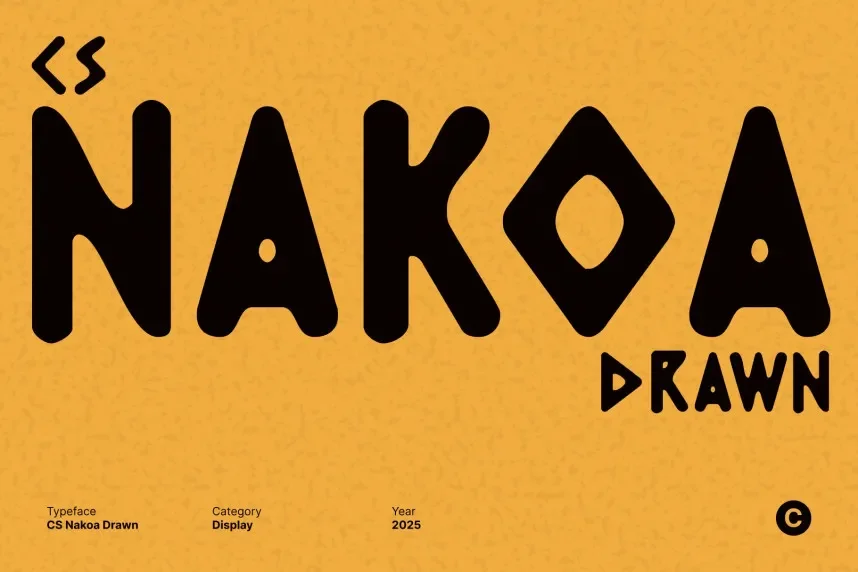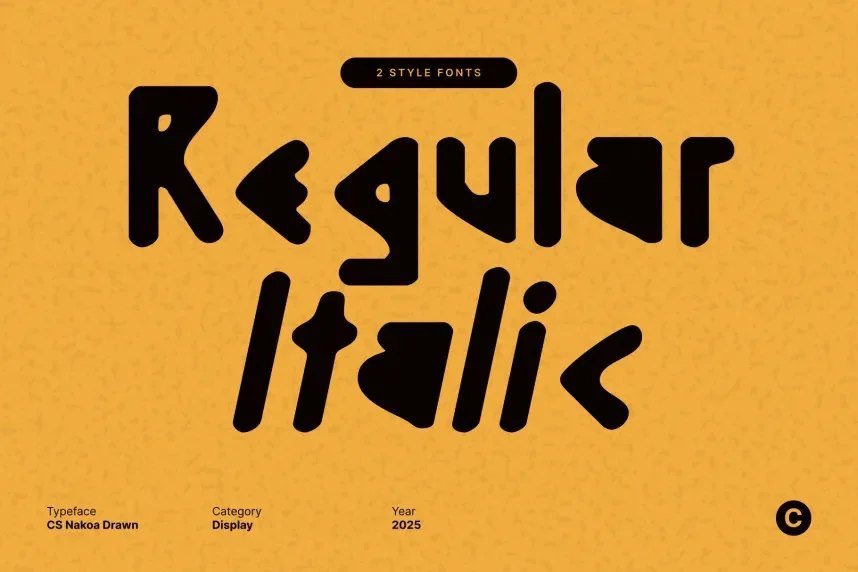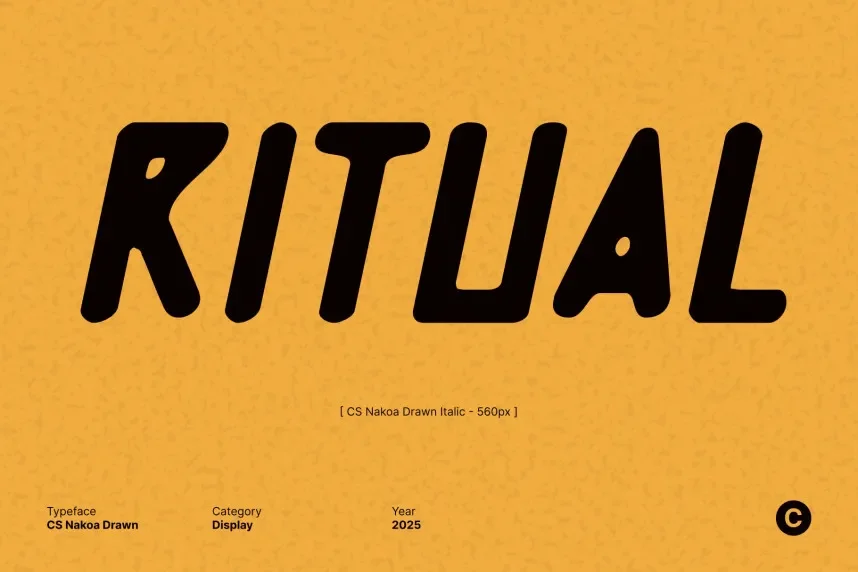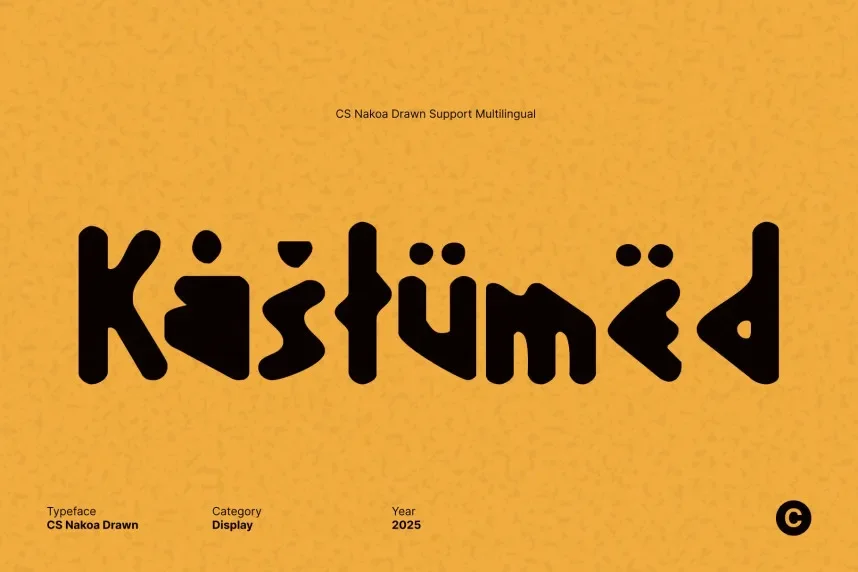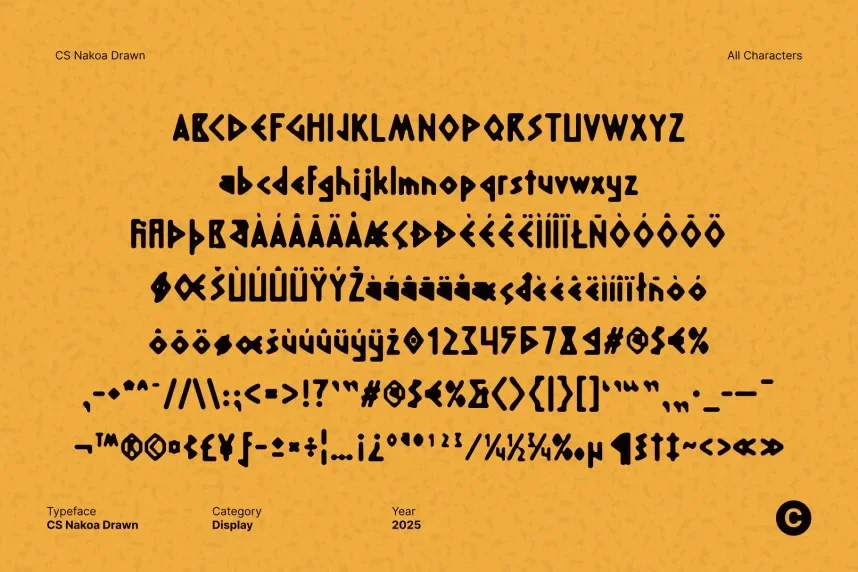
CS Nakoa Drawn Font is a sleek, sans-serif typeface with a modern, clean design. Its rounded corners and smooth curves give it a minimalist look, making it a great choice for contemporary branding, digital interfaces, or stylish logos. The font's readability and balance make it versatile for various applications.